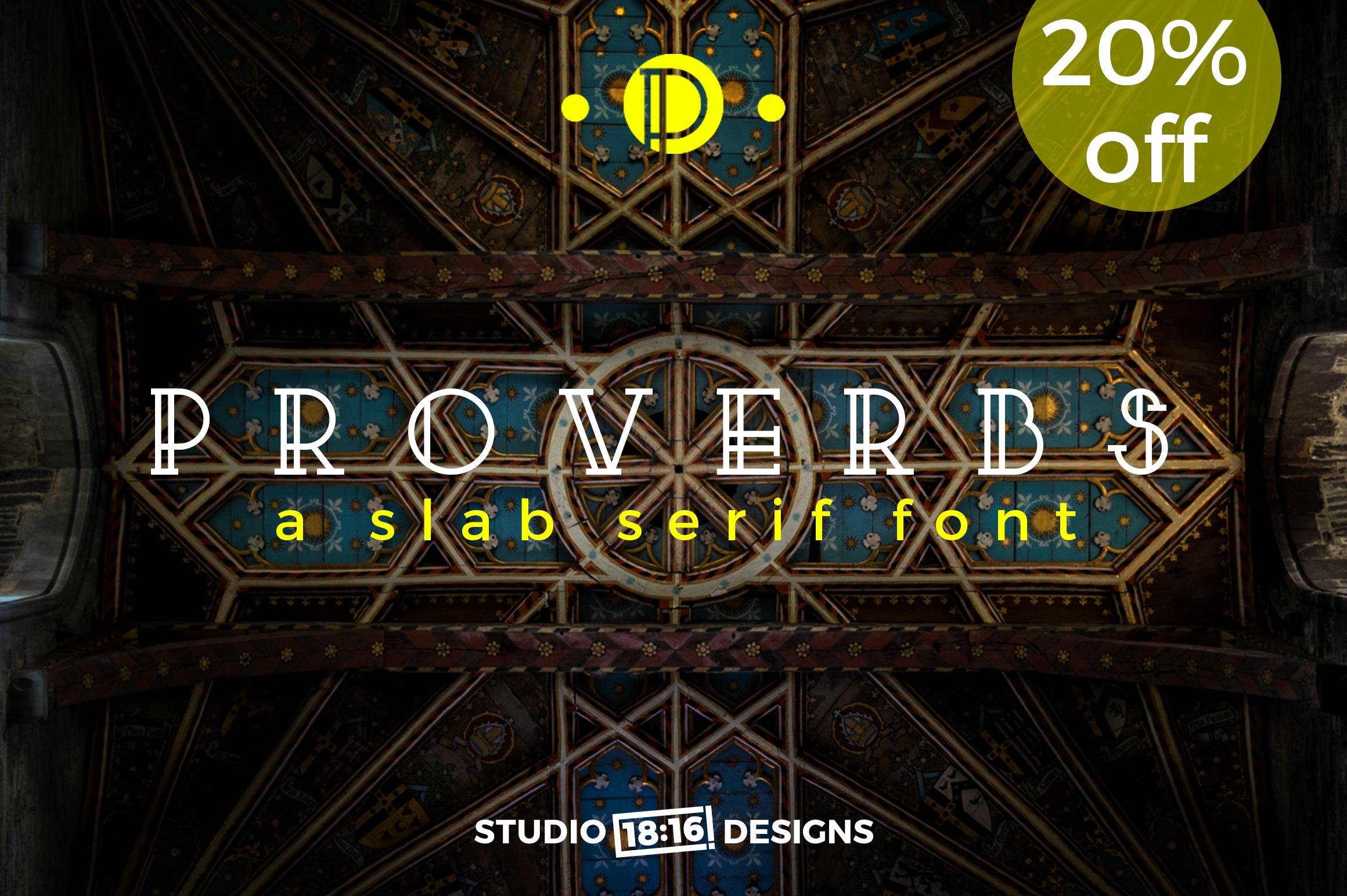
Proverbs Regular | A Slab Serif Font
Proverbs Regular is a slab-serif display-type font. It was built with precision using matching curves and lines on each letter to complement its unique style. The double lines reinforce structure and a strong base. The serifs at the end of each letter helps them to stand alone without needing additional text around them to make a statement.
Proverbs Regular was created to be used as a display font. It works especially well with added tracking. This font uses all uppercase glyphs. The lowercase glyphs are small caps.
Proverbs Regular is ideal for:
- Large header text
- Text overlays for hero images
- Book covers
- Product Mock-Ups